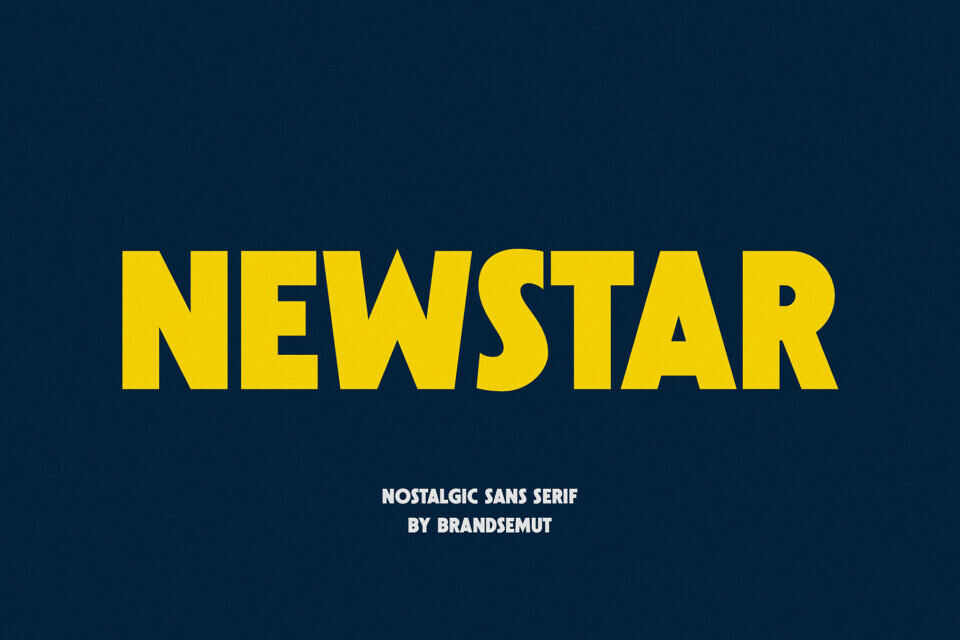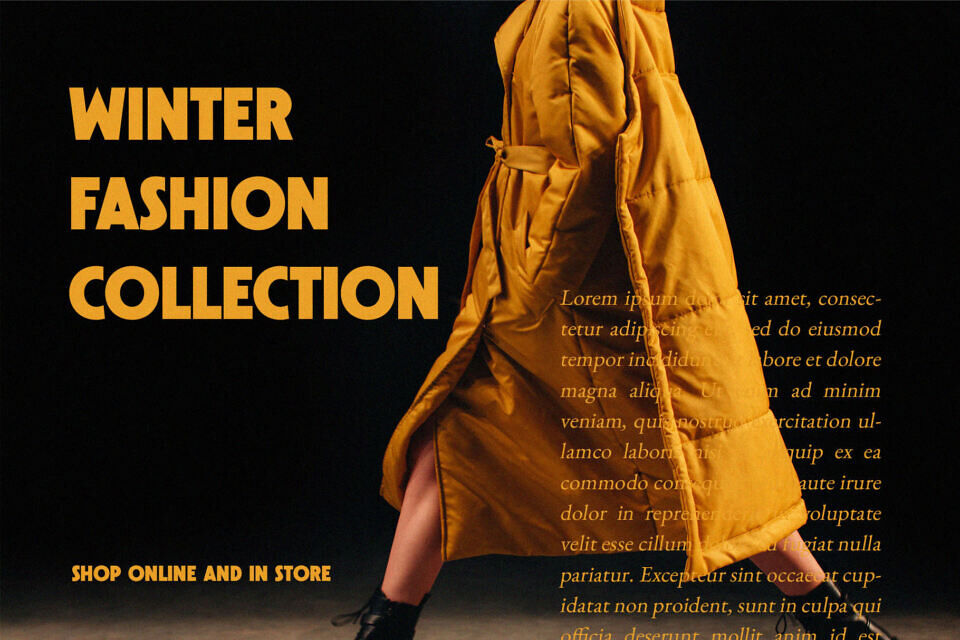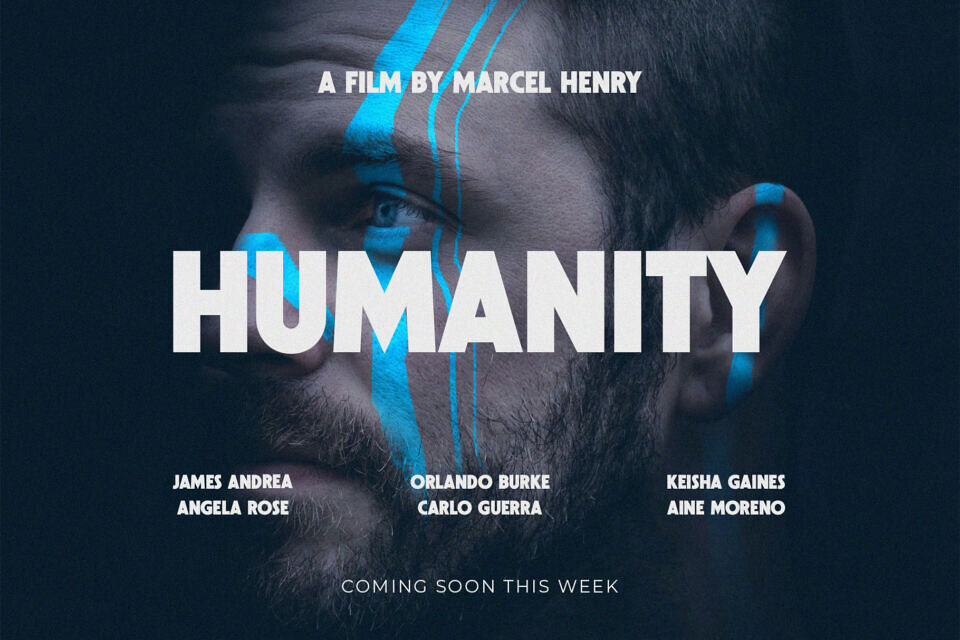
Newstar Font
Introducing Newstar Nostalgic Sans Serif. Newstar is a modern and nostalgic sans serif font, best used as a display for headings, logos, branding, magazines, product packaging and invitations. Newstar come with clean lines and smooth curves give any project an extra touch of class.
Designed by: Brand Semut (BrandSemut)